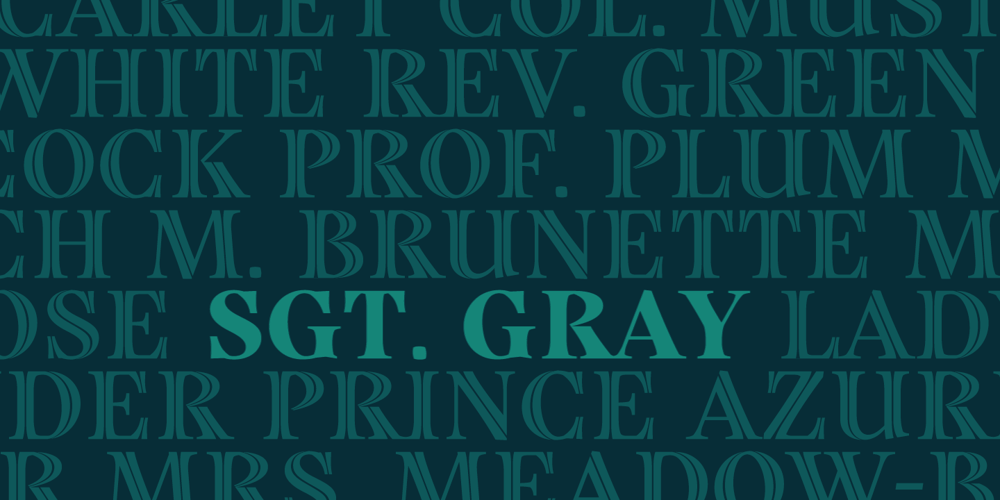
Grafton Titling Font Family was designed by Neil Patel and published by Tetradtype. Grafton Titling contains 1 styles and family package options. Grafton Titling was designed for dramatic impact. It contemporizes old style proportions, bracketed serifs and a left-leaning stress angle with striking contrast and modern angular joins. The solid style has a timeless feel, while a flared through-line variation provides textural interest. Small caps, a complement of OpenType features, and support for diacritics and accented characters make it a robust and distinctive choice for headlines that demand attention. Through-line characters are accessible using the Stylistic Set or Stylistic Alternate OpenType feature.